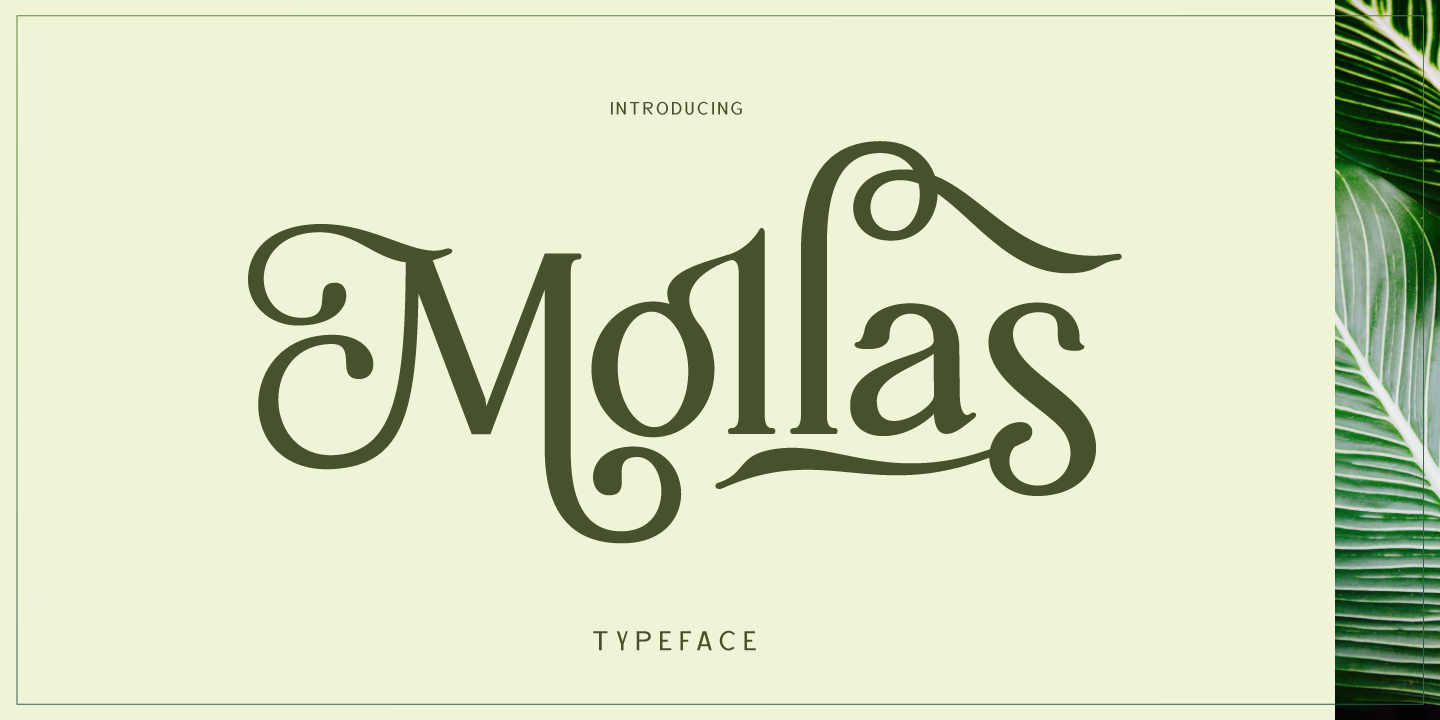
Mollas Font Free Download is a stylish and modern serif typeface that blends classic elegance with a bold, contemporary edge. With its sharp serifs and refined curves, this font is perfect for branding, fashion design, editorial layouts, social media content, and luxurious packaging. Mollas brings a high-end feel to any project, making it a favorite among designers aiming to create a sophisticated, premium look.
Whether you're working on a logo for a boutique brand, a chic magazine cover, or a classy website header, Mollas Font Free Download offers the perfect mix of grace and power. Its multiple weights and stylish alternates give you the flexibility to explore creative typography while maintaining strong readability.
Elevate your design game with the timeless charm and contemporary flair of Mollas Font Free Download. Try it out today and bring a refined voice to your visual storytelling.